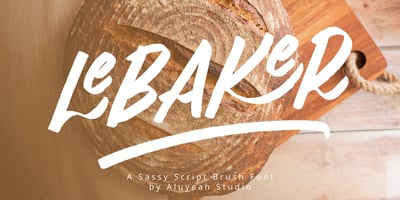
Al Lebaker
Al Lebaker font
Al Lebaker Font Family was designed by Linggar Sundoro and published by Aluyeah Studio. Al Lebaker contains 1 styles and family package options. Al LeBaker is a sassy script brush font! Allowing you to create sassy handwriting. With ligature that give it special touch. LeBaker script is guaranteed to make your text stand out – perfect for printed quotes, posters, cards, product packaging, headers, branding and whatever your imagination holds. Al LeBaker has OpenType support, Multilingual support for 15 languages and is PUA Encoded.Thanks for checking out LeBaker. I really hope you enjoy using it!If you have any questions I’d be more than happy to answer them, just send me a message!